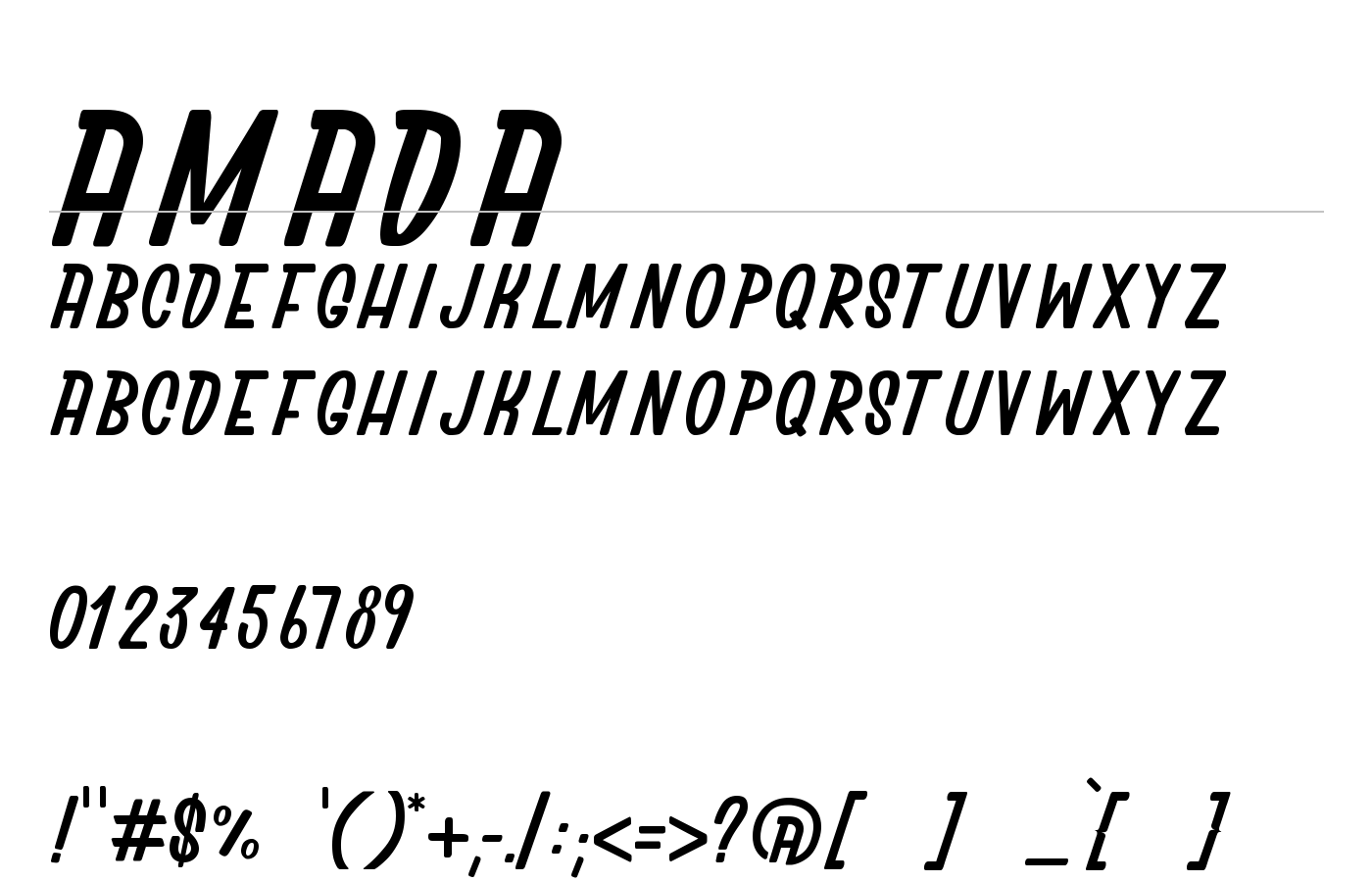
Amada is a sleek, condensed sans-serif font with a strong, modern character and a dynamic, italicized slant that conveys motion and energy. Its clean, uniform strokes combined with slightly rounded terminals give it a stylish yet approachable feel, making it ideal for bold headlines, branding, and editorial design where a contemporary, confident look is desired. This font stands out well in high-impact uses, adding a sense of speed and sophistication to any design.
Amada Font
About Amada Font